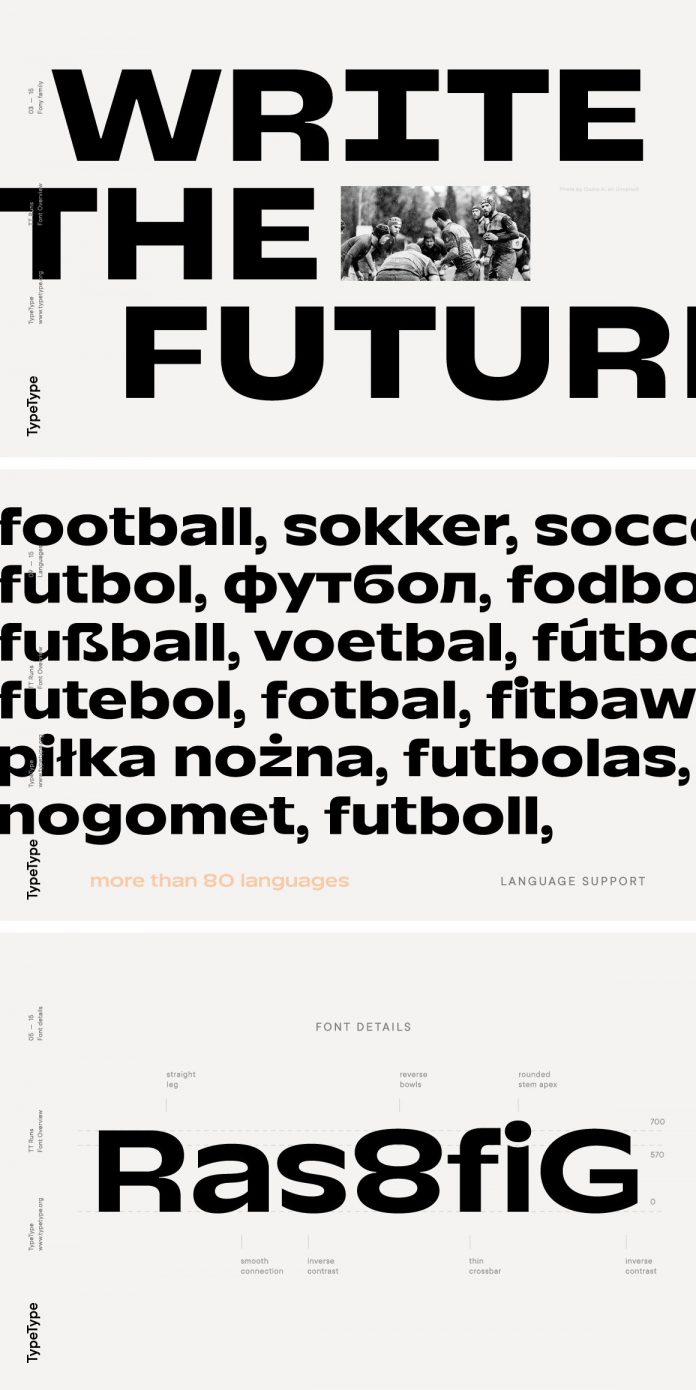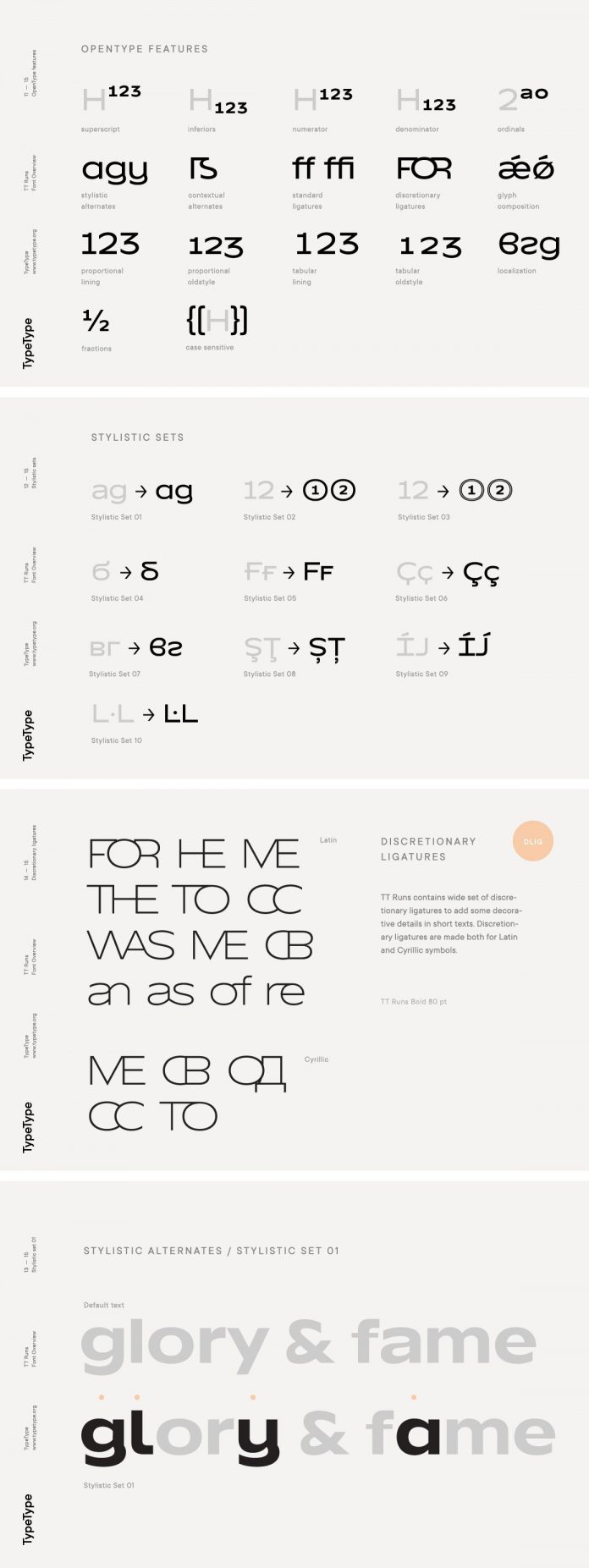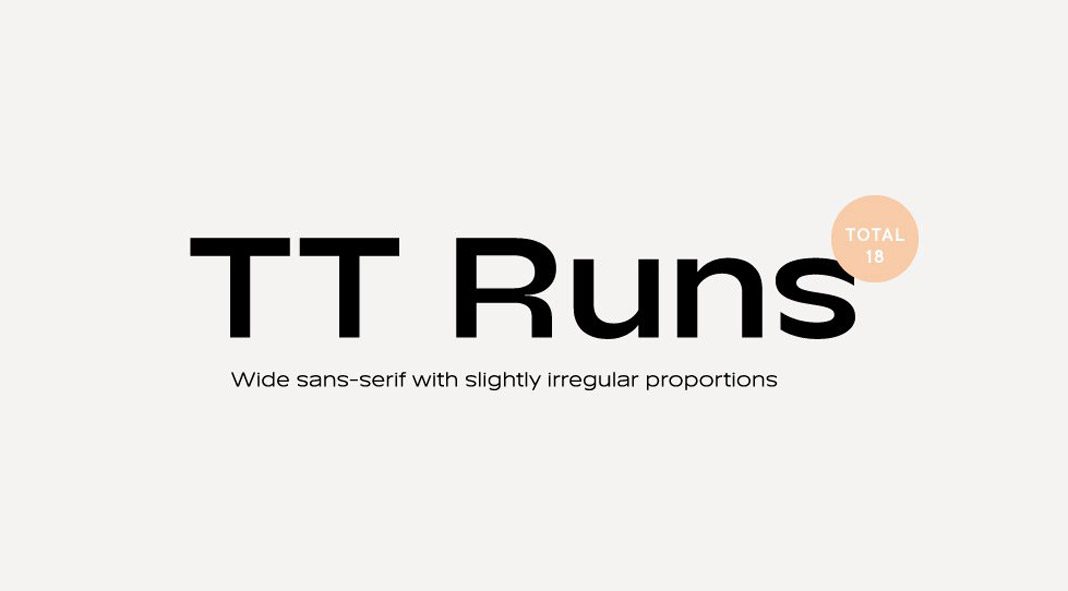
TT Runs, a sporty sans-serif font family from foundry TypeType.
Designed by the TypeType team including Vika Usmanova, Antonina Zhulkova, and Philipp Nurullin, the TT Runs font family is based on the idea of creating a wide modern sans-serif, which reflects a sporty style. Before starting to work on the typeface, the designers examined the theme of Olympic venues and their respective identities. In addition, they traced the evolution of “sports” typefaces through different eras and continents. Read more below the following image or click on one of the following links to purchase the complete family as an introductory offer.
The entire family consists of 20 styles including 9 uprights and 9 obliques plus 2 variable fonts. TT Runs supports 72 languages and comes with a bunch of useful OpenType features such as stylistic alternates, standard and discretionary ligatures, old-style figures, numbers in circles, arrows, and much more. To learn more, just click on one of the following links.